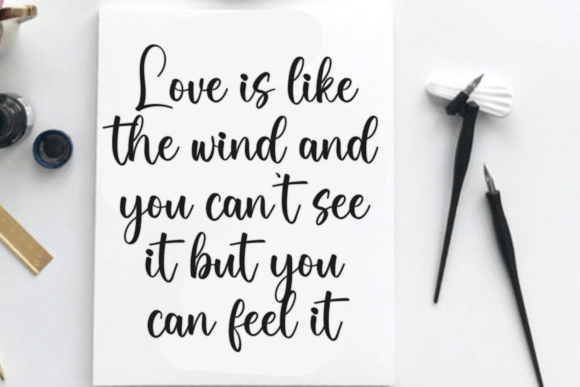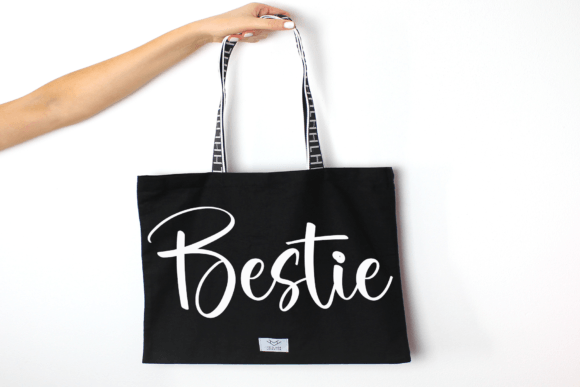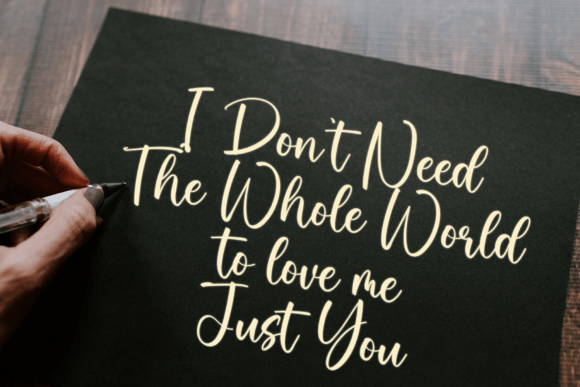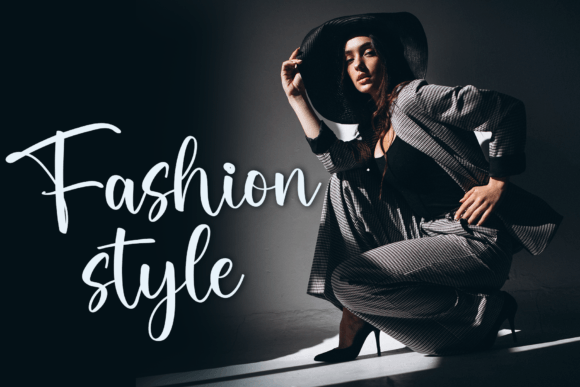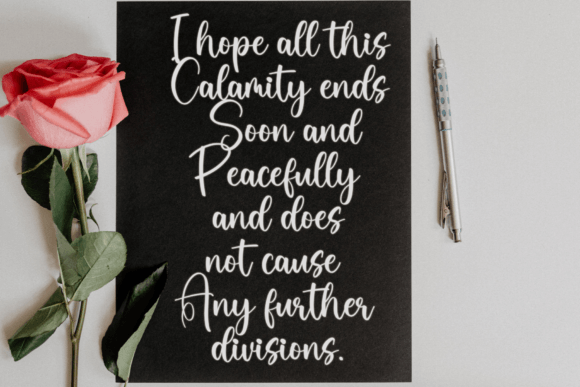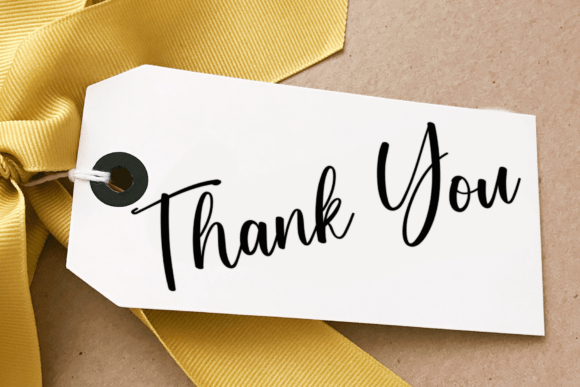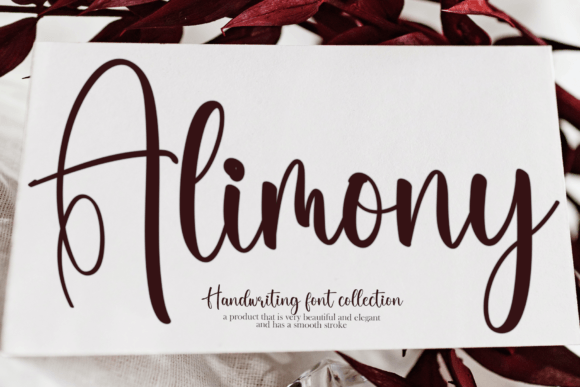
Introducing Alimony Font: The Ultimate Handwritten Font for Creative Projects
Are you a designer, crafter, or DIY enthusiast looking for a font that can add a personal touch to your creative projects? Look no further than Alimony Font, a cute and casual handwritten font that exudes an incredibly friendly feel. In this article, we’ll dive into the features and benefits of Alimony Font, and explore how it can elevate your designs and projects to the next level.
What is Alimony Font?
Alimony Font is a beautiful, handcrafted font that is perfect for a wide range of creative applications. Its casual, handwritten style gives it a warm and approachable feel, making it ideal for designs that require a personal touch. Whether you’re creating social media graphics, crafting DIY projects, or designing calligraphy scripts, Alimony Font is the perfect choice.
Key Features of Alimony Font
• Cute and Casual Style: Alimony Font boasts a playful, handwritten style that is sure to capture the attention of your audience.
• Friendly Feel: The font’s friendly feel makes it perfect for designs that require a personal touch, such as social media graphics, invitations, and DIY projects.
• Highly Versatile: Alimony Font can be used for a wide range of creative applications, from calligraphy scripts to social media graphics.
• Easy to Read: The font is highly legible, making it perfect for designs that require clear and concise communication.
Benefits of Using Alimony Font
So, why choose Alimony Font for your creative projects? Here are just a few benefits of using this amazing font:
• Adds a Personal Touch: Alimony Font’s handwritten style gives your designs a personal touch that sets them apart from generic, template-based designs.
• Enhances Creativity: The font’s unique style and friendly feel can inspire creativity and help you think outside the box.
• Perfect for Social Media: Alimony Font is ideal for social media graphics, as it can help you create engaging and shareable content that resonates with your audience.
• Great for DIY Projects: The font is perfect for DIY enthusiasts who want to add a personal touch to their projects, such as handmade cards, invitations, and decorations.
How to Use Alimony Font
• Use it for Headings and Titles: Alimony Font is perfect for headings and titles, as its bold and playful style can help grab the attention of your audience.
In conclusion, Alimony Font is a versatile and highly effective font that can add a personal touch to your creative projects. Its cute and casual style, friendly feel, and high legibility make it perfect for a wide range of applications, from social media graphics to DIY projects. Whether you’re a designer, crafter, or DIY enthusiast, Alimony Font is a must-have font that can help you create stunning and engaging designs.